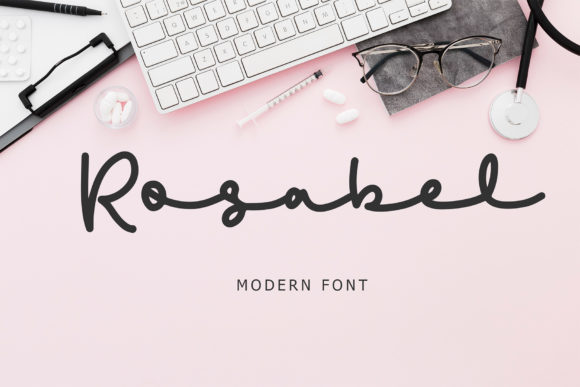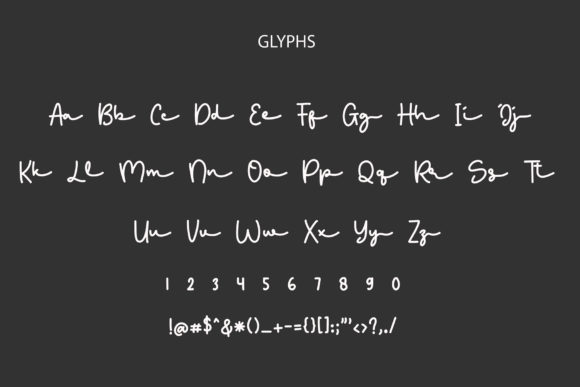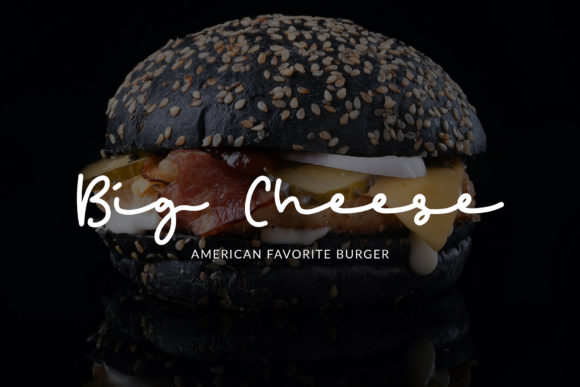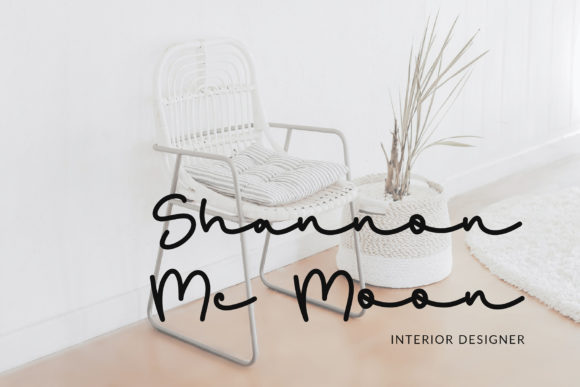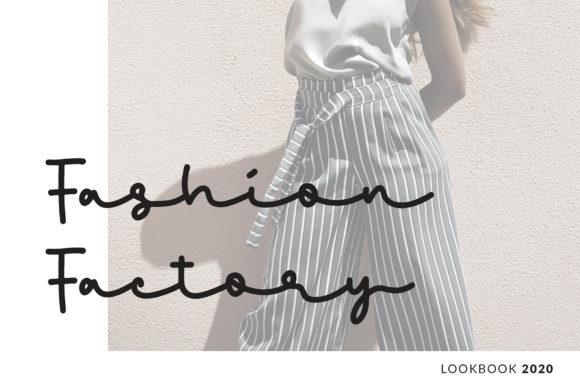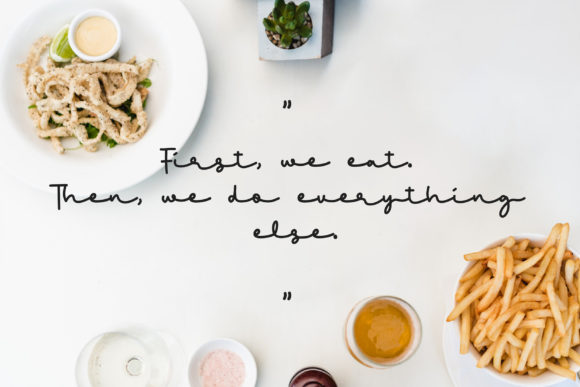
Rosabel Font
About Rosabel Font
Rosabel is a beautiful font with modern style. It features an incredibly classic style, while still keeping a friendly feel. Rosabel is the perfect font for making original and outstanding designs.